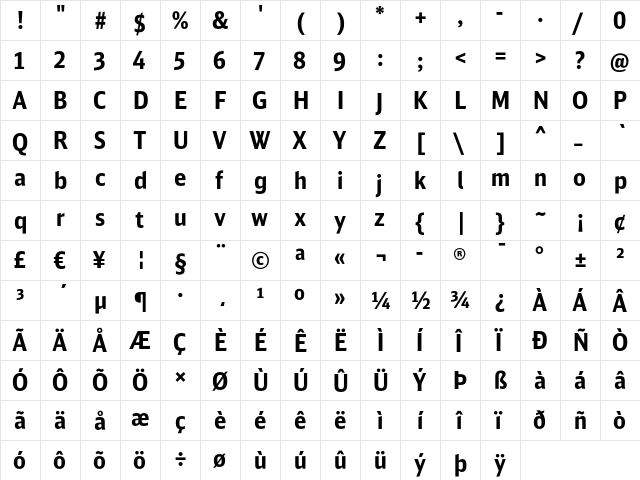
DB Sans Cond Altern Bold
Design Context for DB Sans Cond Altern Typeface
DB Sans Cond Altern is a composed and adaptable typeface that performs quietly and consistently across a wide range of design contexts. Its bold stroke weight gives it real presence on the page. The condensed width makes it efficient for tight spaces without sacrificing legibility.
Pro Tip: Pair DB Sans Cond Altern with a font of contrasting weight or personality to build a more expressive typographic hierarchy.